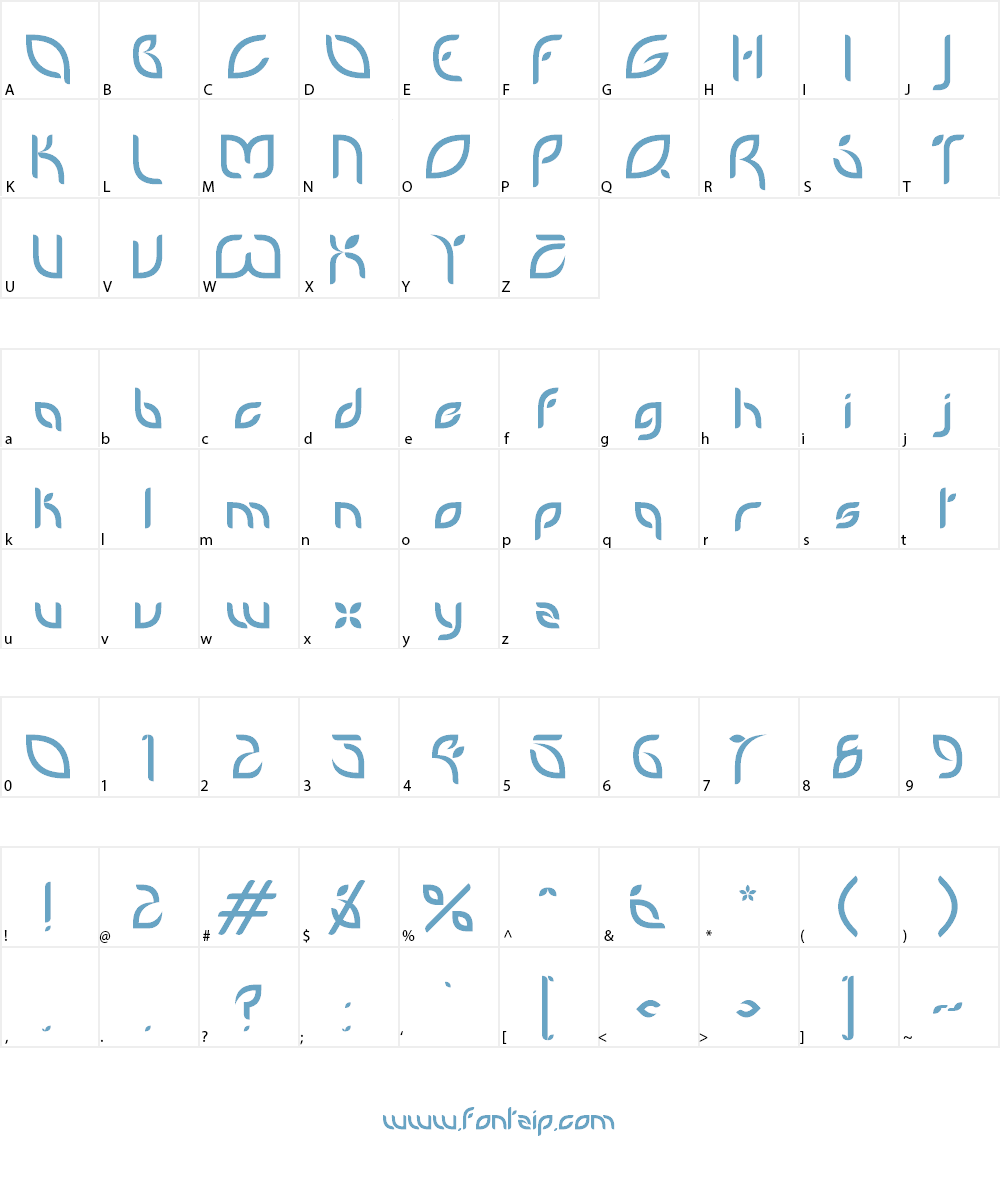
My first completed font. I wanted something slightly futuristic, but not digital or industrial in design. I decided to go more organic and derive the shapes from iconic leaf, petal, and stem shapes.